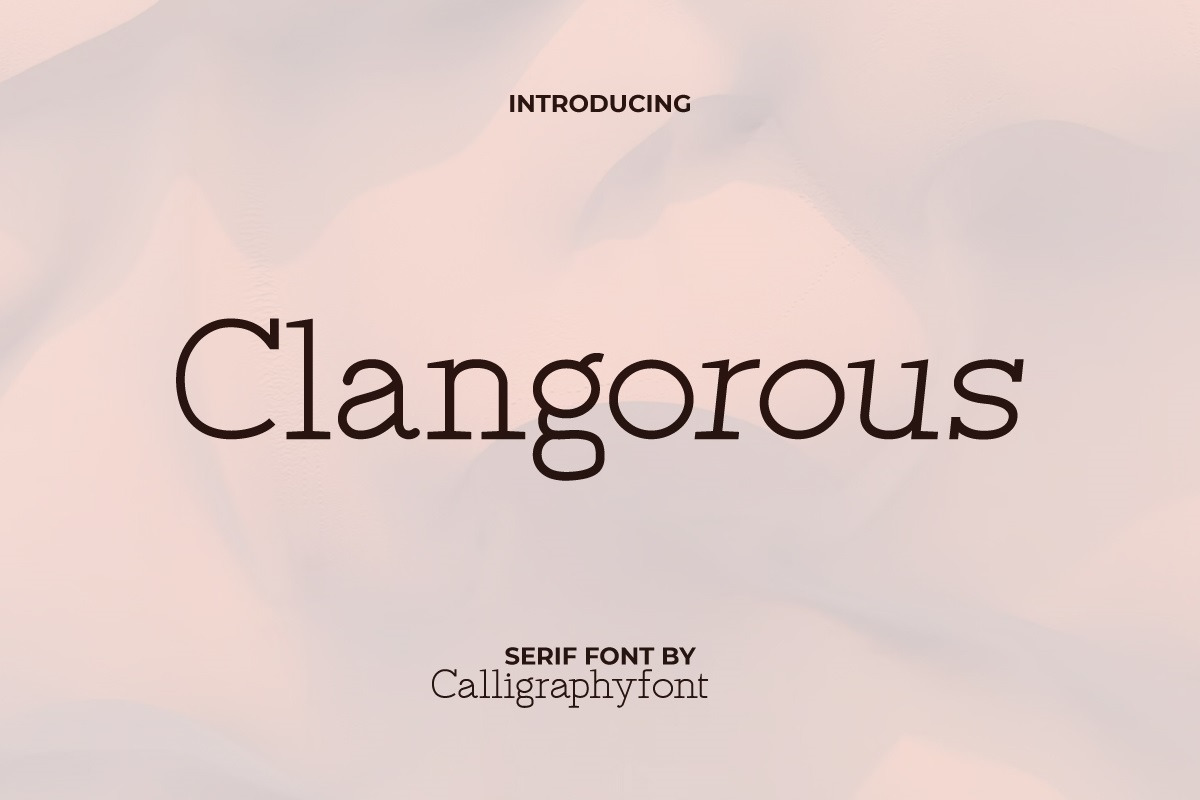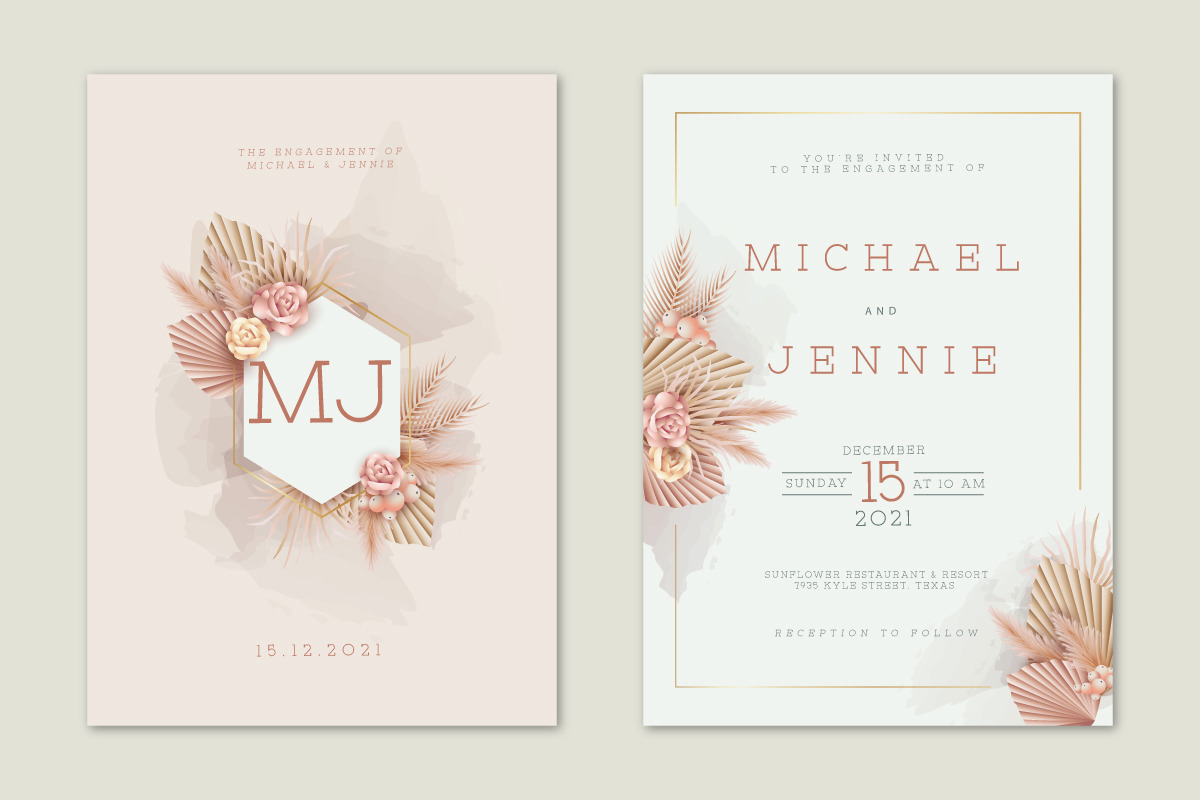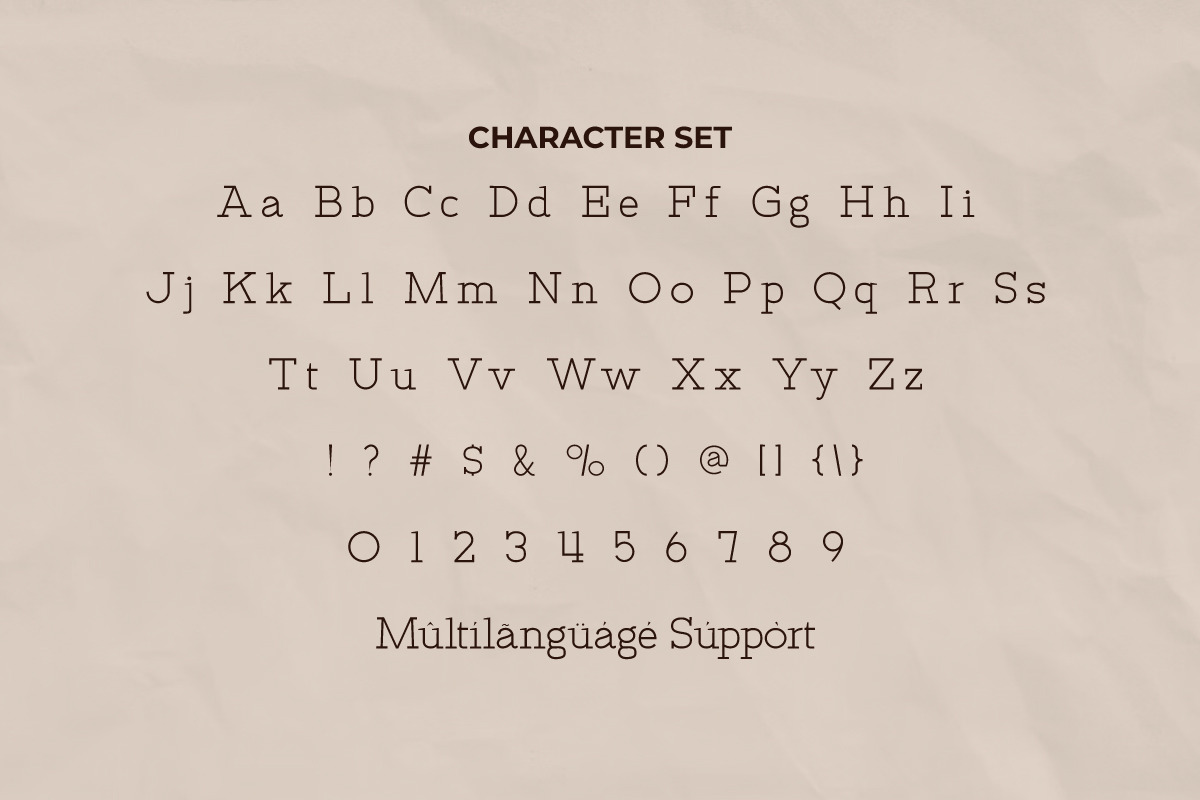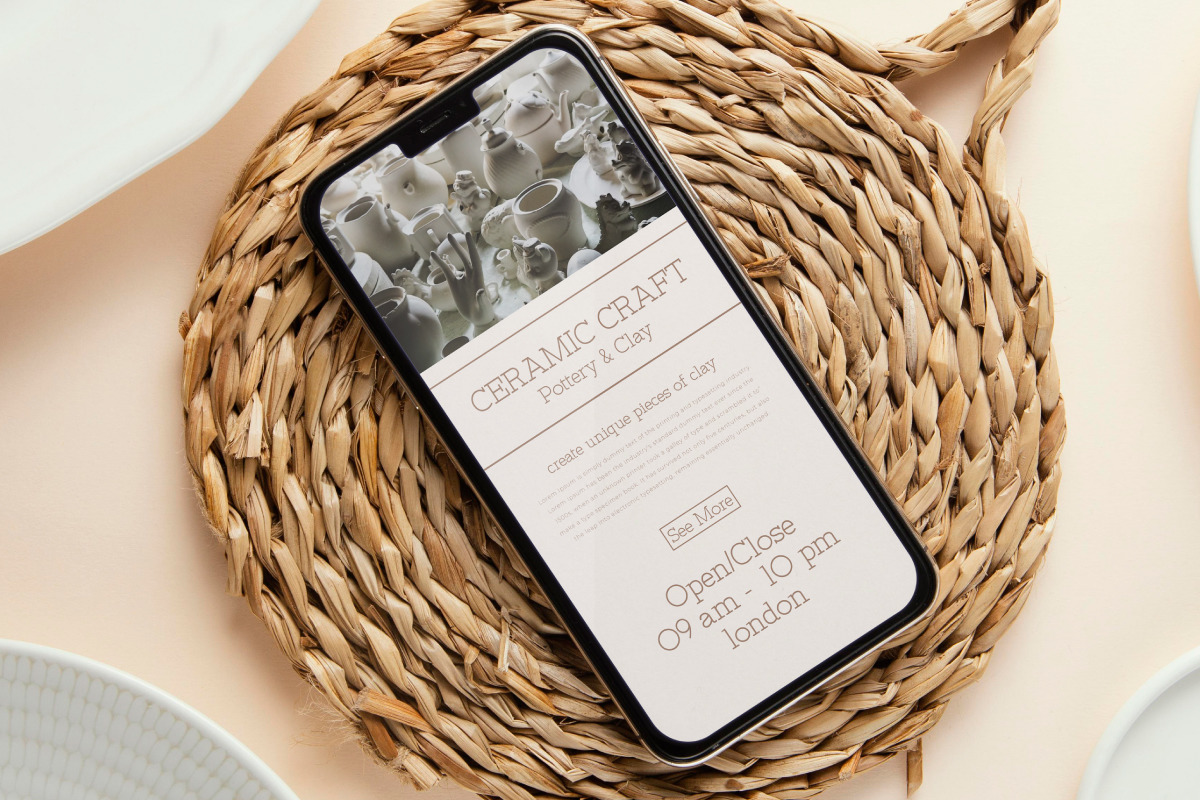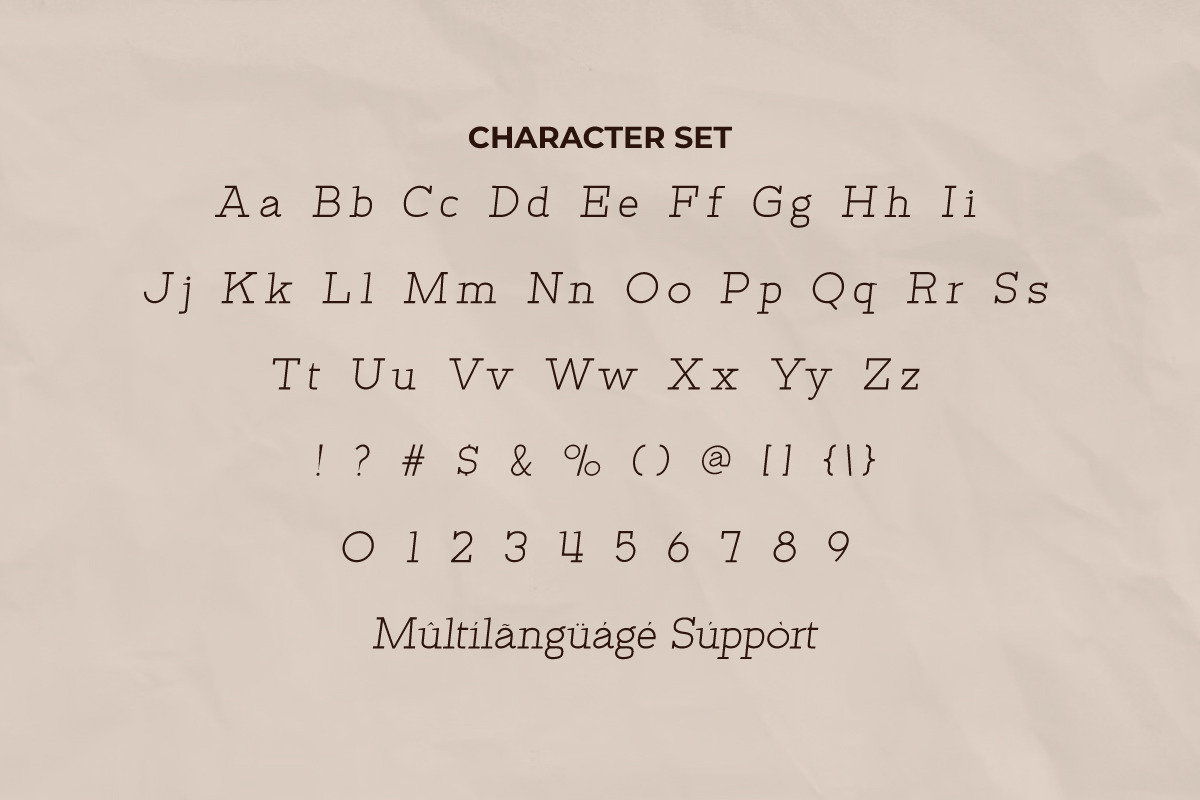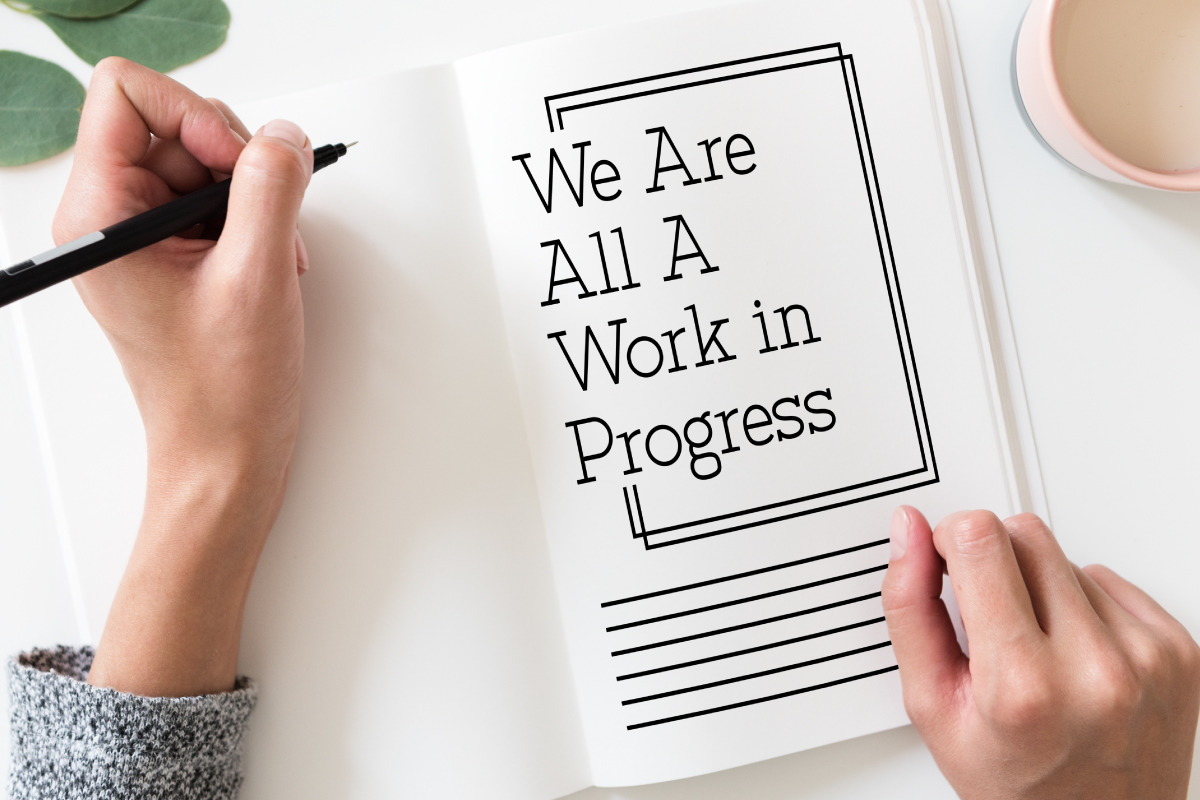
Clangorous Font
Clangorous Font is a casual serif font that comes in with two styles: Regular and Italic exclusively created by CalligraphyFonts. This font is suitable for any industry such as : architect, boutique, cosmetic, fashion, homeware, publishing, spa and salon, wedding organizer, writer, and anything that needs a stylish serif look.
Clangorous Font will be perfect for any creative projects, such as: billboard, brand logo, headline, invitation, label, magazine catalog, packaging design, stationery, website, and good for your secondary text font with script. This font has a perfect appearance and makes it easy for readers.
Clangorous Font comes with a full set of Uppercase and Lowercase Basic Characters, Number, a large range of Punctuation and Symbol, and also supports multilingual characters. Ready to use both on Windows machine or Mac with simple installations. It’s tested to work well in the Adobe Apps (Illustrator, Adobe InDesign, Adobe Photoshop) CorelDraw, and others. PUA Encode Characters means you can access all the glyphs and other characters easily – Fully accessible without additional design software.